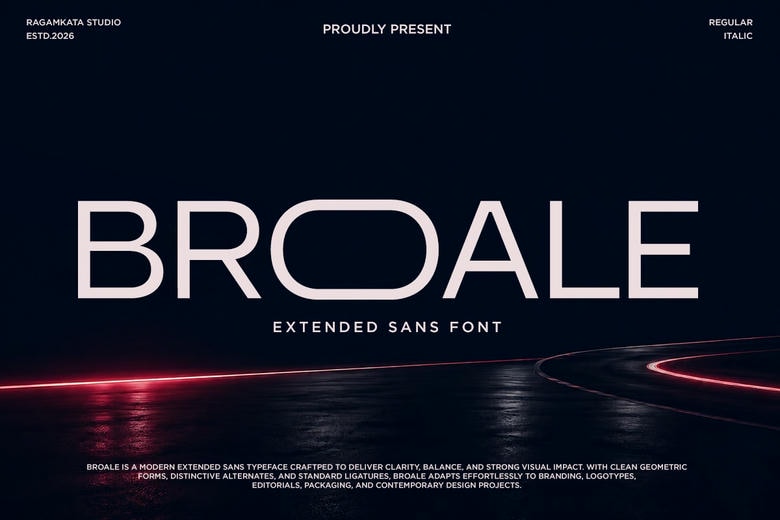
Broale Font
Broale is a modern, ultra-wide sans-serif font designed to be bold and easy to read. Its wide shape, simple geometric style, and even spacing give your digital and print projects a strong, clear look.
Broale is available in Regular and Italic styles, and includes stylistic alternates and standard ligatures. These features let you create expressive designs without sacrificing readability.
Broale is inspired by modern cars, futuristic buildings, and performance-focused brands. Its clean letter shapes are great for logos, motorsport graphics, headlines, ads, tech brands, user interfaces, websites, packaging, and premium products. Each character is crafted to create a smooth visual flow and a polished, modern style.
Broale Sans Serif Font